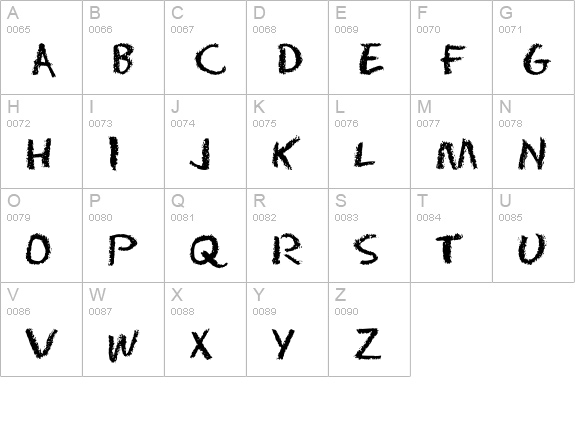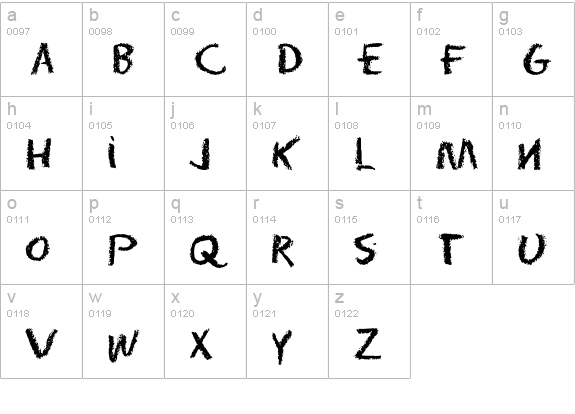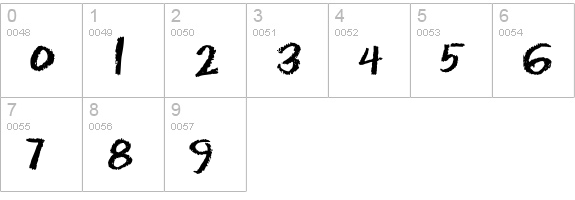
EraserDust Font Details
Introducing EraserDust font - a whimsical and charming typeface perfect for adding a touch of playfulness to your design projects. This font captures the essence of handwritten notes on a chalkboard, with its unique blend of irregular edges and quirky details. The EraserDust font exudes a sense of creativity and spontaneity, making it ideal for a wide range of applications such as greeting cards, posters, invitations, and more. The best part? EraserDust font is completely free to download at FontsMarket.com! So go ahead and unleash your creativity with this delightful and versatile typeface. Whether you're designing a birthday card, creating a flyer for a special event, or simply adding a fun touch to your social media posts, EraserDust font is sure to make your text stand out in a fun and engaging way. Download it now and let your imagination run wild!